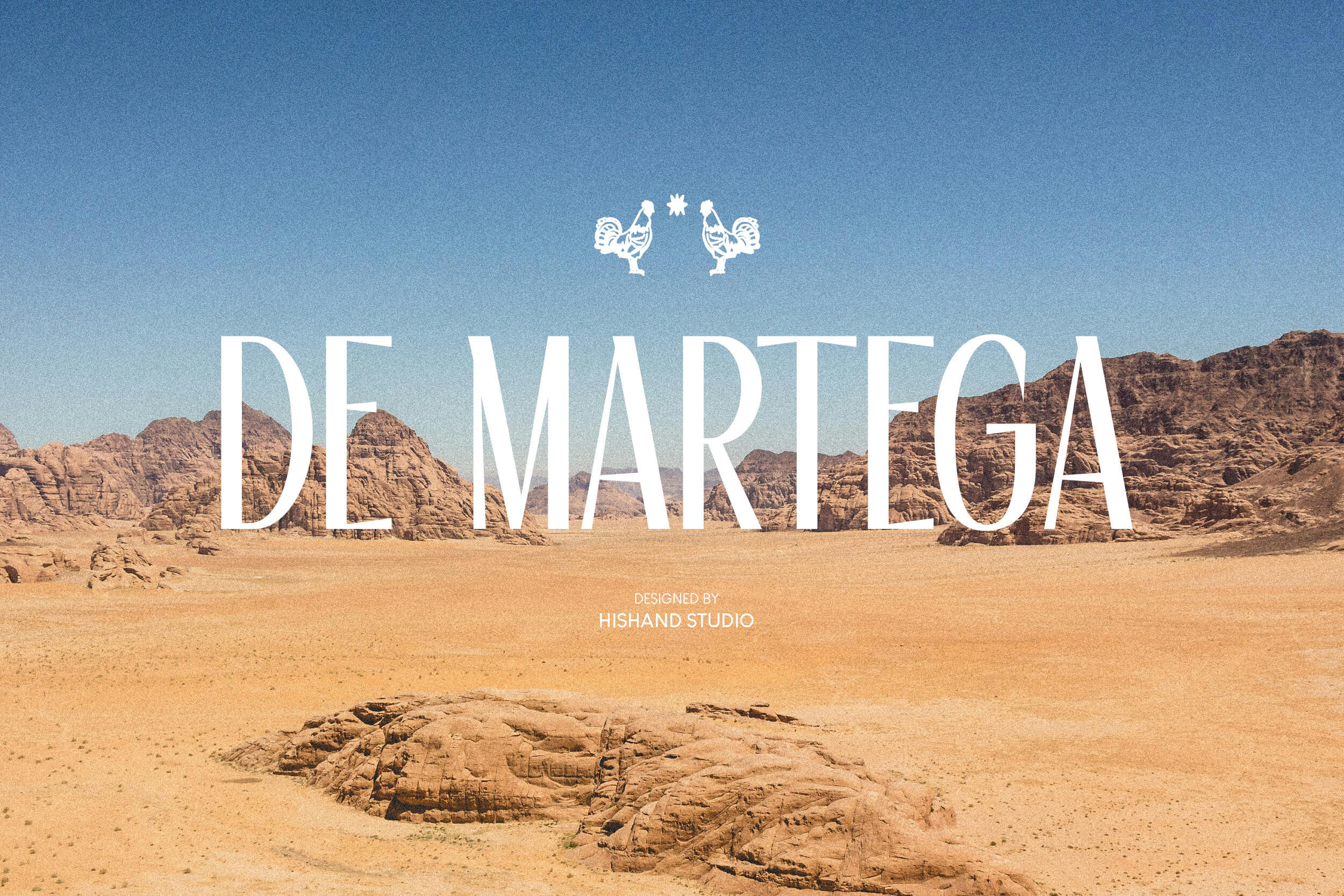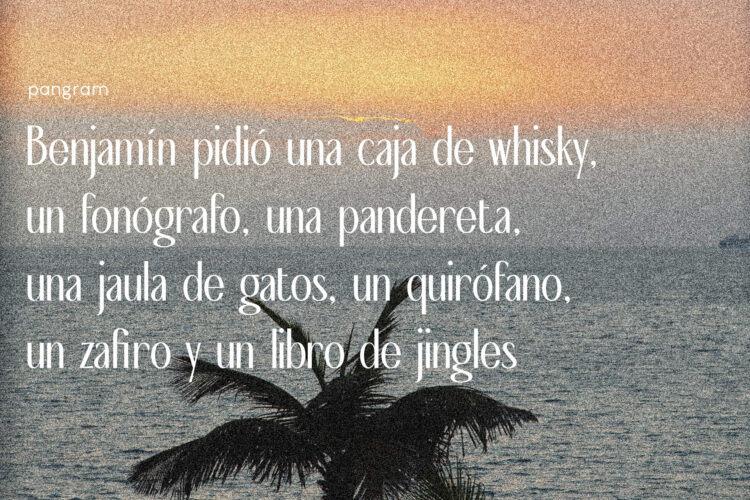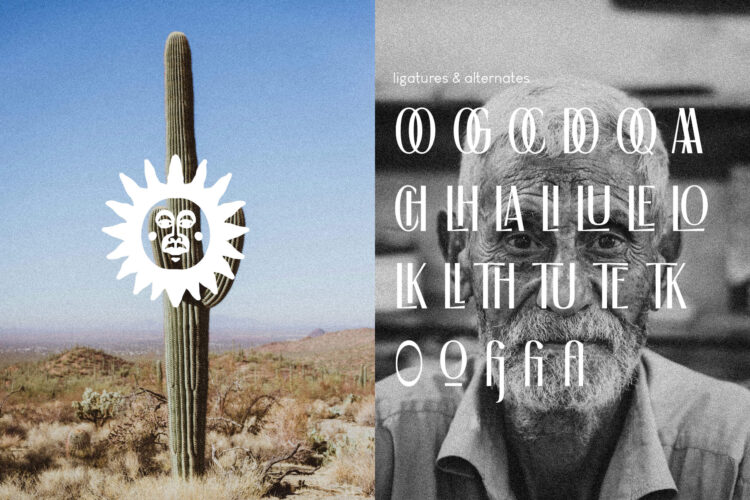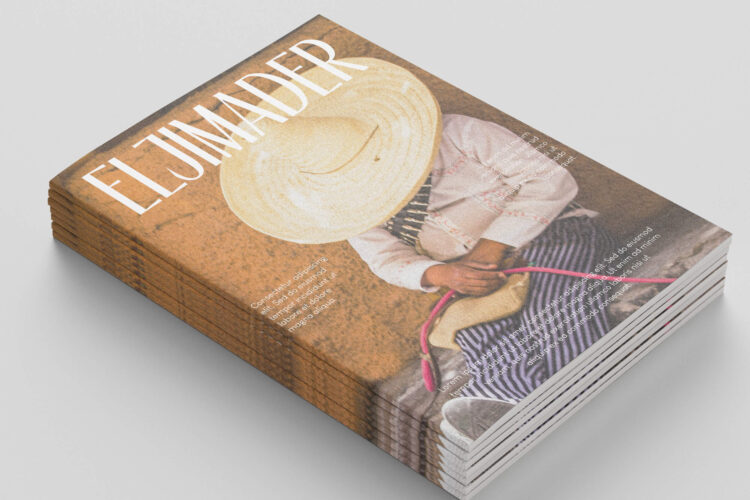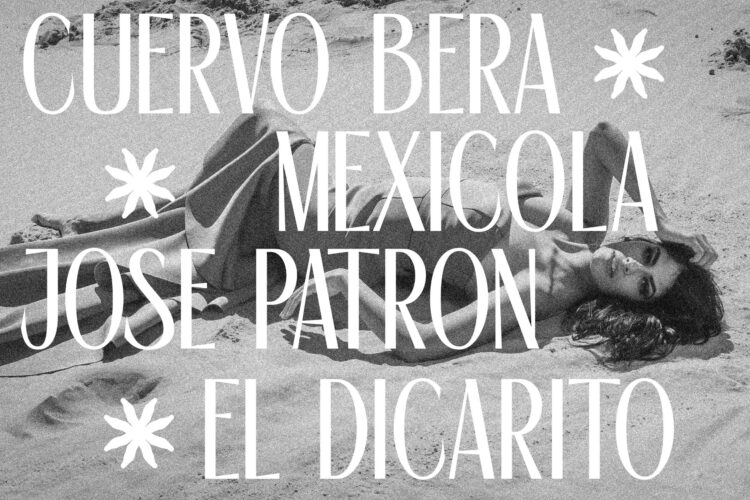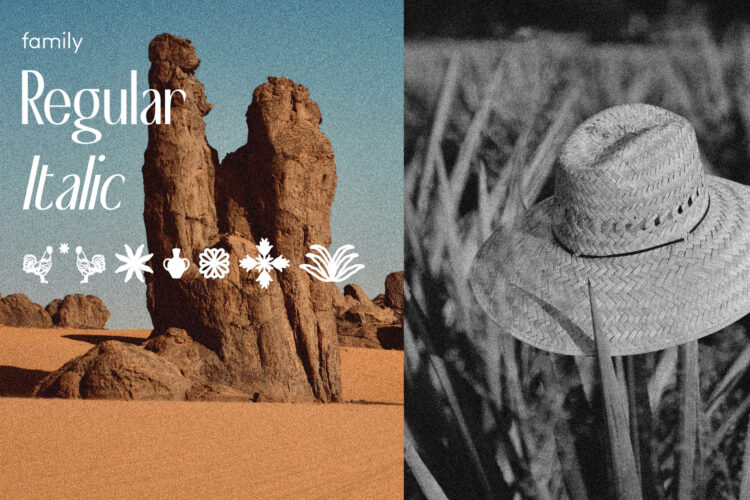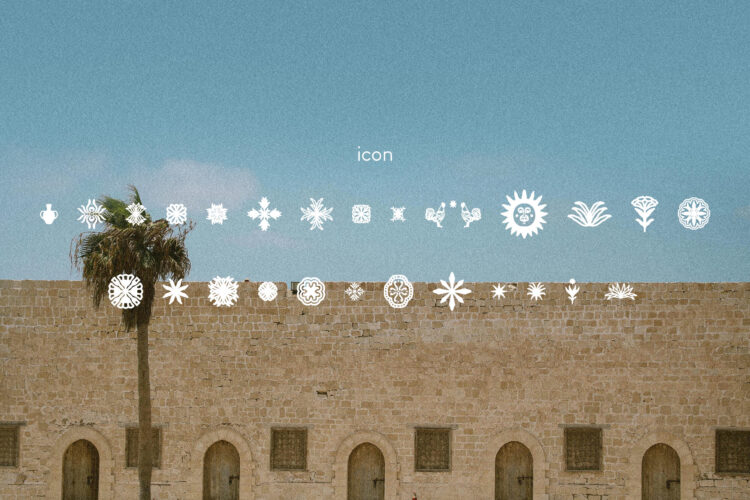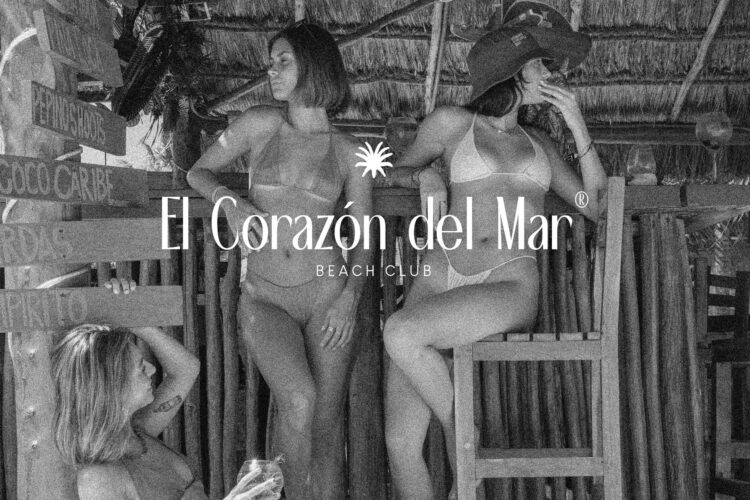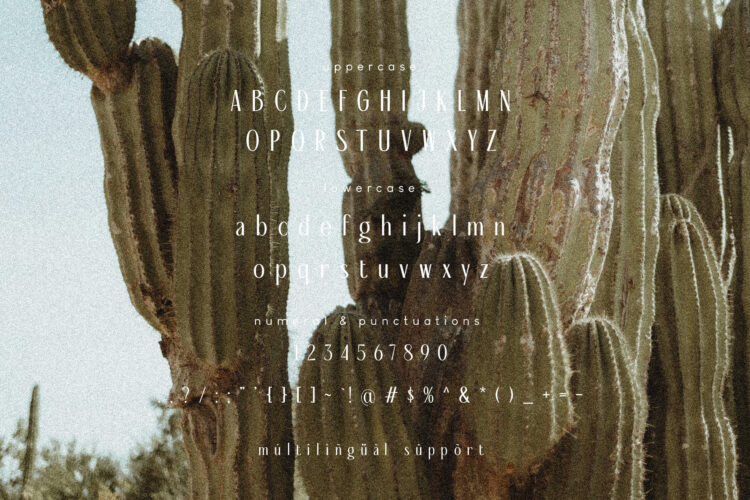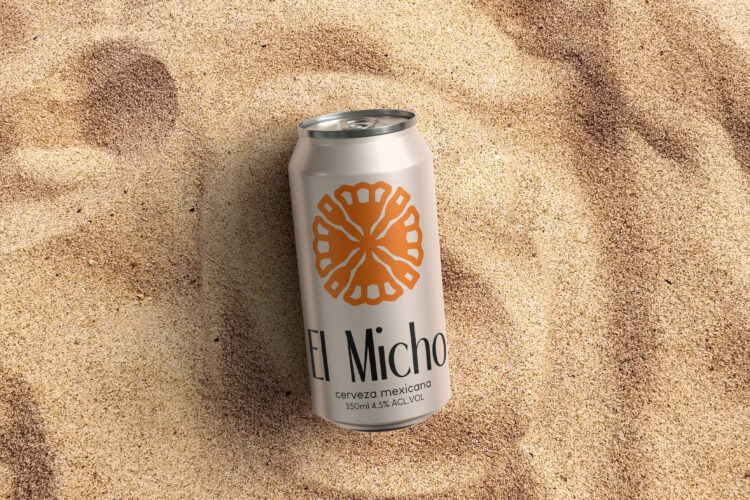
De Martega Font
Description
De Martega is a refined serif typeface designed to bring sophistication and style to any project. With tall, elegant letterforms and a confident presence, it balances bold vertical strokes with delicate curves, creating a look that is both graceful and commanding. Slightly condensed in shape, the font carries a modern touch while still holding onto the timeless qualities of a classic serif.
What makes De Martega stand out is its subtle organic details. While many serifs lean into rigid geometry, this typeface keeps a handcrafted feel that adds warmth and character. The result is a font that looks luxurious without being cold, refined without being stiff. It’s polished and stylish, yet approachable a versatile choice for designers who want elegance with personality.
De Martega is especially suited for branding, packaging, and editorial projects. In logos, it communicates strength, trust, and sophistication, making it perfect for fashion, beauty, and lifestyle brands. On packaging, its balance of boldness and delicacy elevates products with a premium feel, whether for cosmetics or artisan goods. In editorial work, its tall forms and graceful rhythm give headlines a sense of importance while maintaining readability.
Or imagine it on a fashion logo, where it strikes the perfect balance between trend and timelessness. Even in social media graphics, the font transforms ordinary words into stylish statements.
Created by Hishand Studio, De Martega reflects a philosophy of blending elegance with personality. It’s a typeface made not just for today, but for enduring impact refined, versatile, and full of characte. Complete with
• ligatures
• alternates
• regular
• Italic
• icon
• kerning
• multilingual support